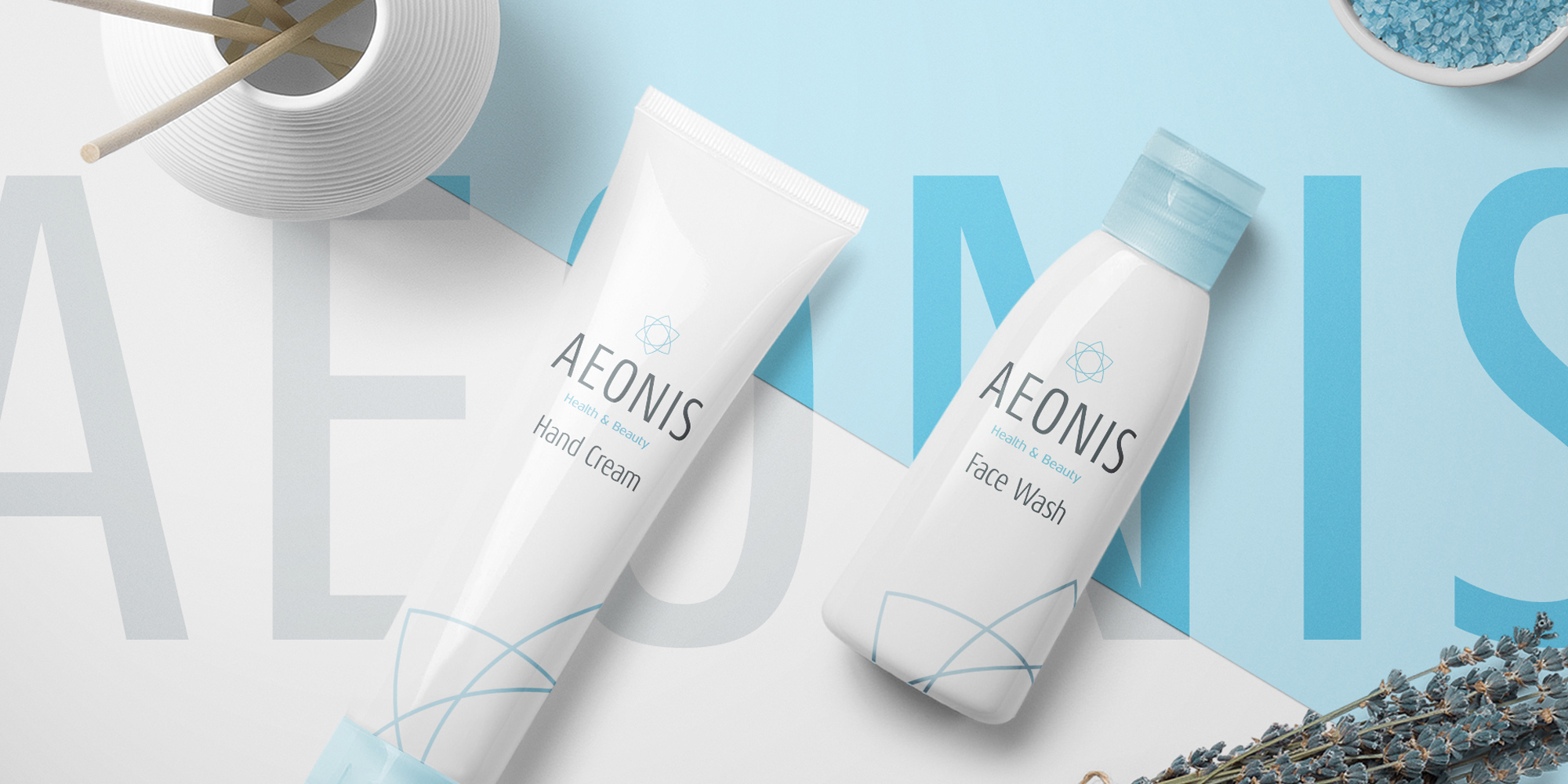
Aeonis Font is ideal for technology branding, software interfaces, modern corporate identity, futuristic packaging design, sci-fi publications, digital media presentations, innovative startup logos, contemporary web design, mobile applications, and cutting-edge advertising campaigns. This forward-thinking typeface excels in creating progressive visual identity across various digital and print platforms.
What makes Aeonis Font exciting is its perfect fusion of geometric precision with organic flow that creates a distinctly futuristic yet approachable personality. The font features sleek letterforms with subtle curves and innovative character details that evoke technological advancement and creative innovation. Its balanced design establishes an atmosphere of forward-thinking sophistication that resonates with modern audiences.
Aeonis Font family includes versatile weights: Thin, Light, Regular, Medium, Bold, and Black versions, each available in both upright and italic styles. Each variant maintains the font's contemporary character while providing designers with comprehensive flexibility for creating dynamic typography systems and innovative brand communications.
This cutting-edge typeface brings modern sophistication to projects requiring progressive presentation. Whether you're designing tech startups, innovative products, or contemporary digital experiences, Aeonis Font Free Download delivers exceptional versatility and contemporary appeal. The font's clean geometry and subtle personality ensure memorable brand recognition across various modern applications.
Technology companies and progressive brands recognize how Aeonis Font perfectly captures the spirit of innovation and future-forward thinking. Its contemporary foundation combined with versatile styling makes it essential for modern branding projects. Download today and transform your designs with this exceptionally crafted futuristic typography.